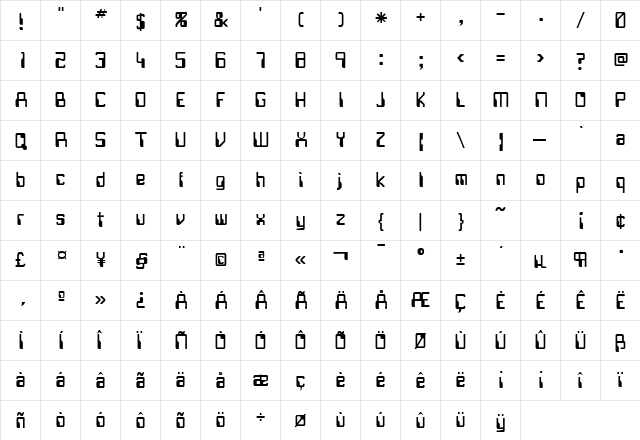
UltimoSSK Regular
Design Context for UltimoSSK Typeface
UltimoSSK is a composed and adaptable typeface that performs quietly and consistently across a wide range of design contexts.